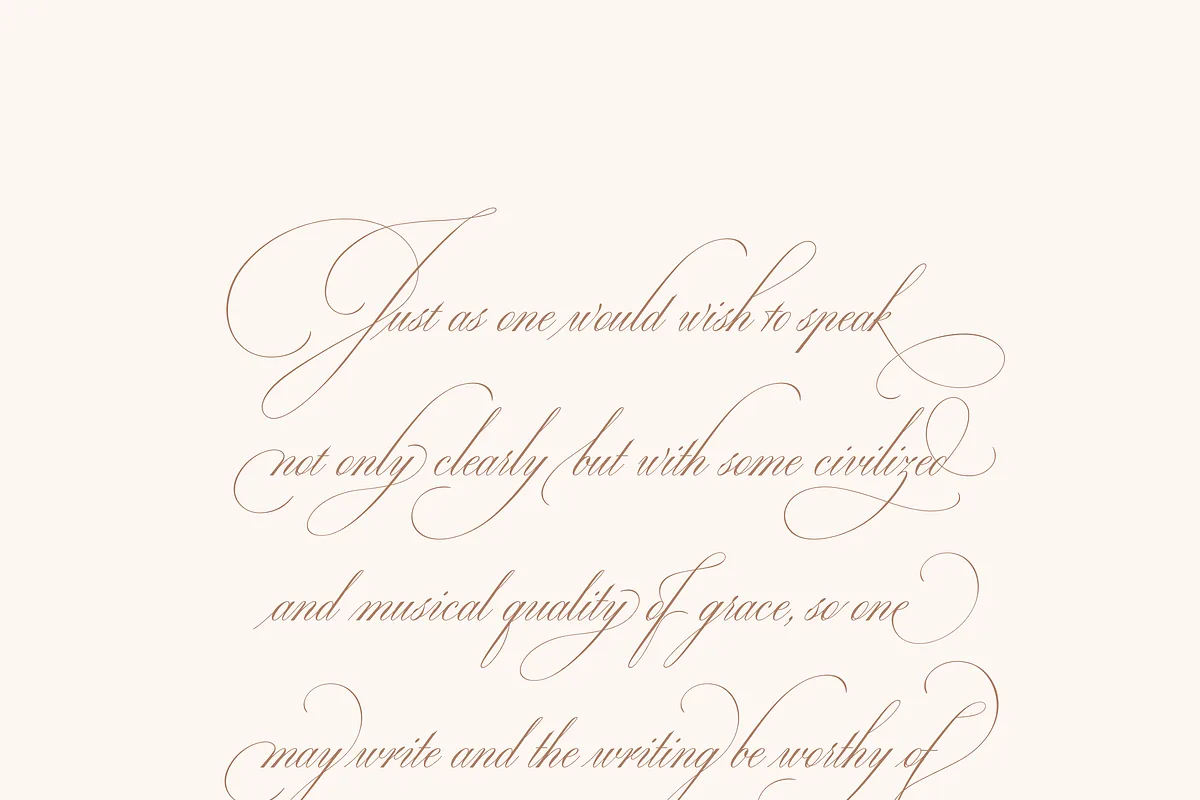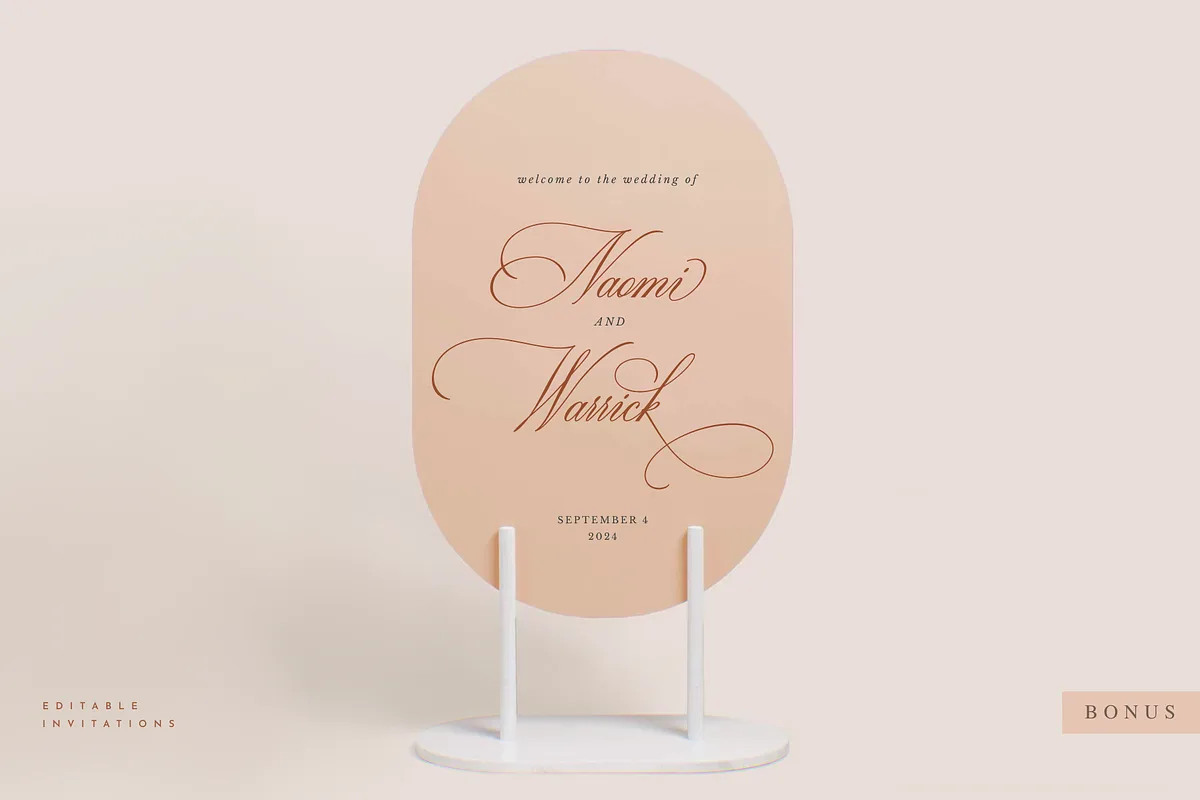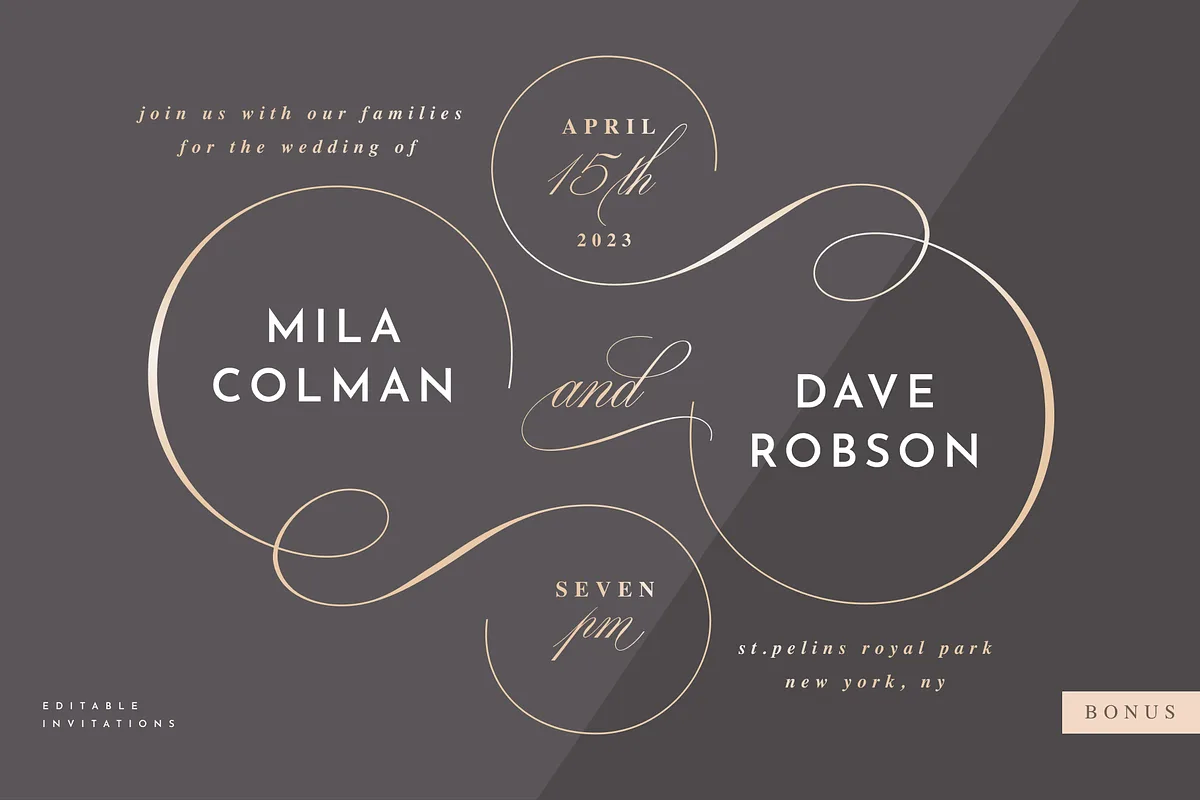
Hi! It took me almost a year to design Ecatherina script. Finally, it is available to purchase! Ecatherina script is an OpenType font family (15 fonts: 5 styles for 3 line thickness) with bonus (editable wedding invitations, menu, quotes, letters, and more).
Great for:
- Wedding invitations (DIY weddings)
- Stationery
- Logos
- Postcards
- Letterpress addressing
- Titles